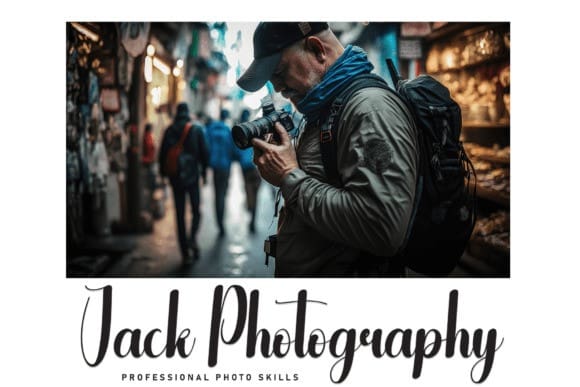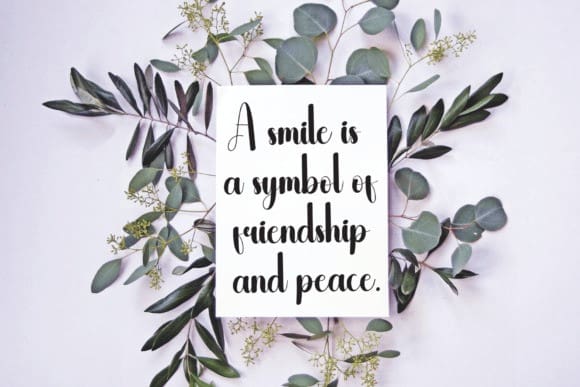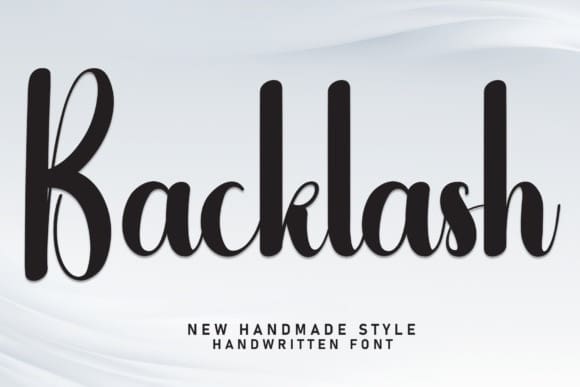
Backlash Script Font
Backlash Script Font is a sweet and friendly handwritten font. Cute and fun, this font is ideal for writing wedding invitations, cards, or any other design that might need a lovely touch!